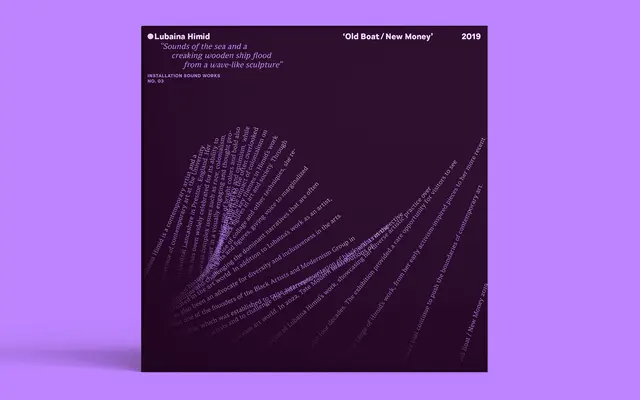
A contemporary text serif in eight weights with true italics, broad OpenType feature support and coverage across Western, Southern and Central European Latin.
Leida is a refined text serif designed for everyday reading scenarios, drawing on typographic history while being drafted directly in modern design software to maintain clean line quality. Each of the eight weights ships with a true italic and over 900 characters, with OpenType features covering fourteen number variations including oldstyle, tabular, fractions, inferiors and circled figures. Alternate forms for lowercase a, e, g and y, plus small caps, give the family flexibility for editorial and book work.
Leida is described as a refined serif type family designed for text reading, with a cheerful personality and balanced functionality, placing it within contemporary text serifs rather than any strictly historical classification.